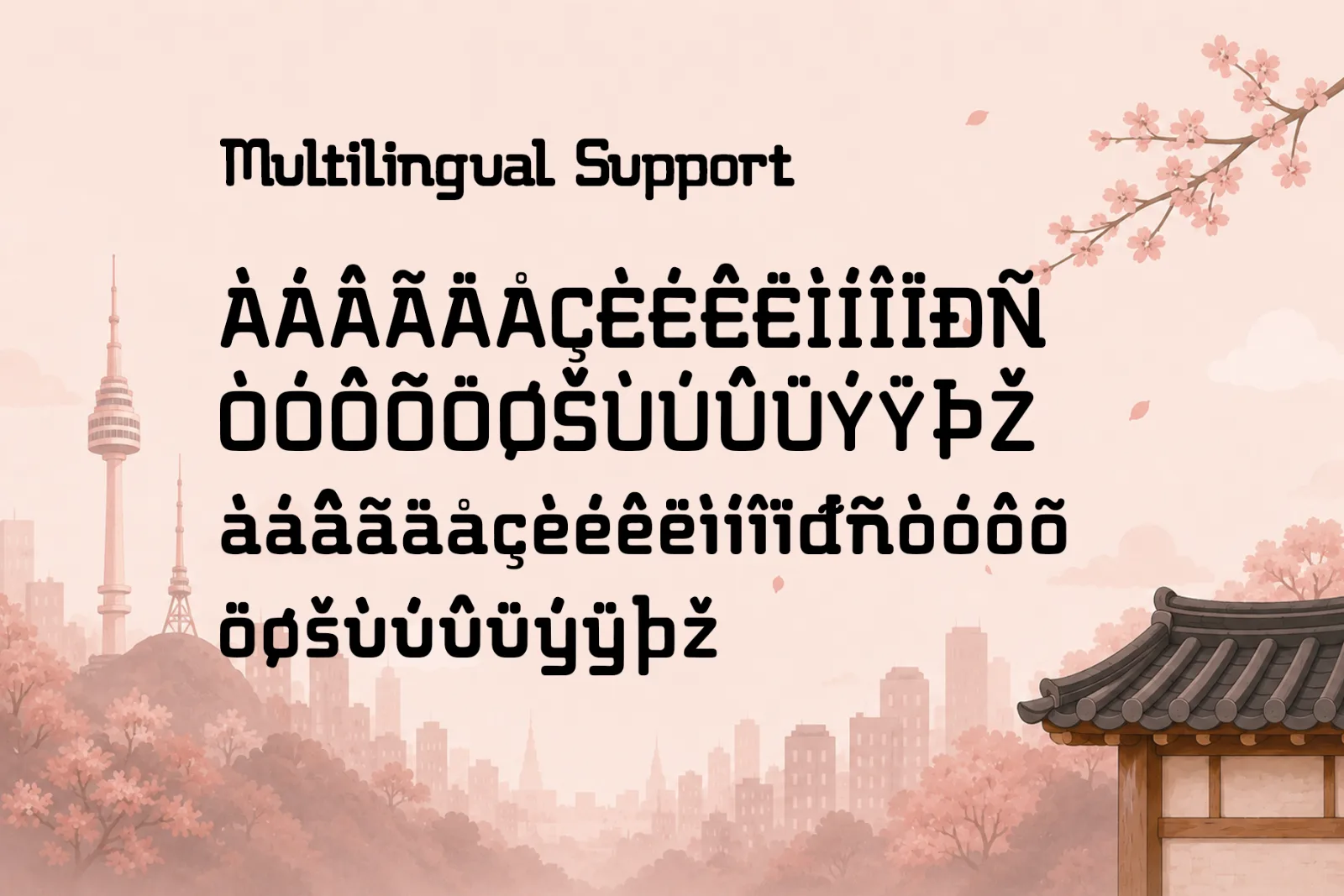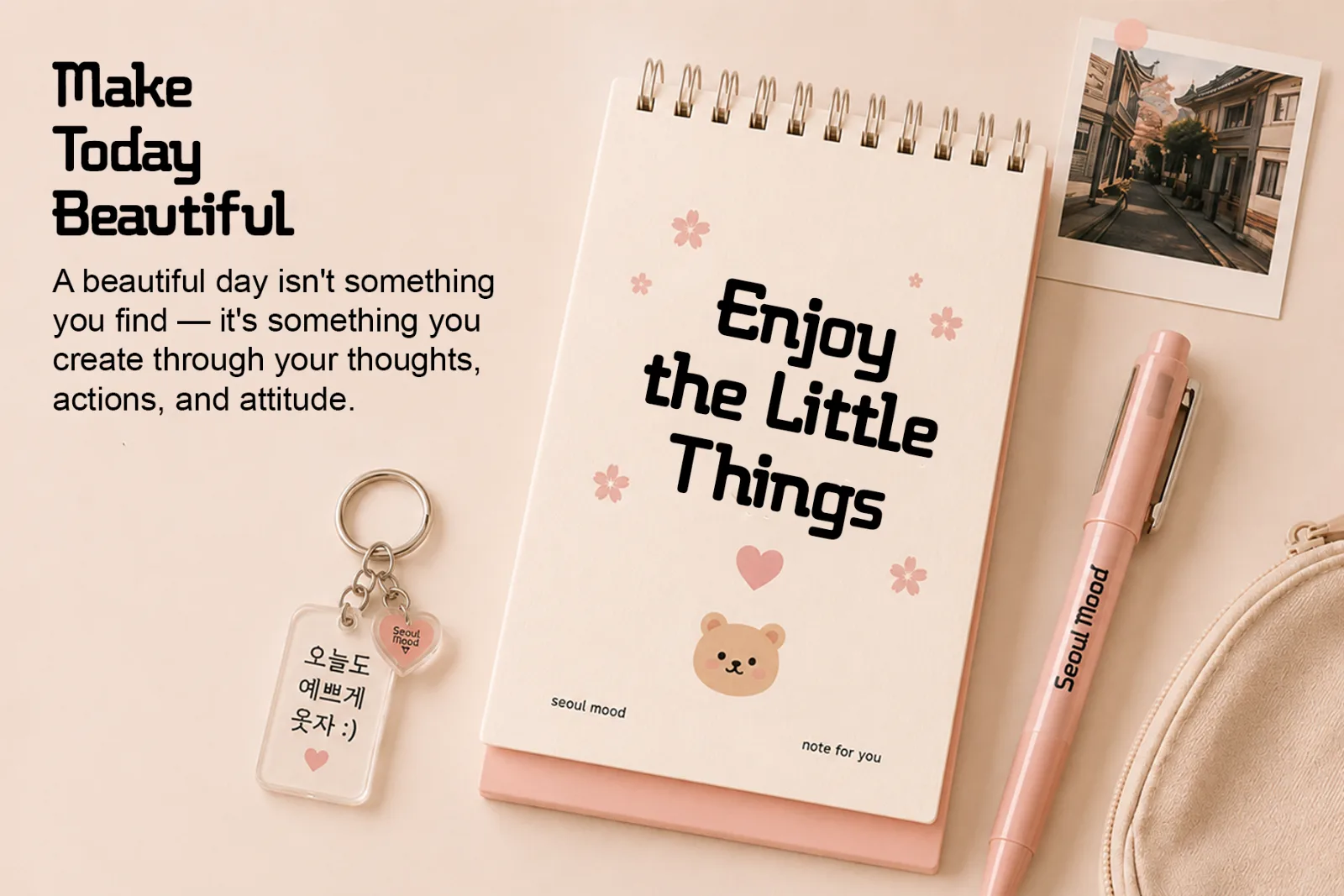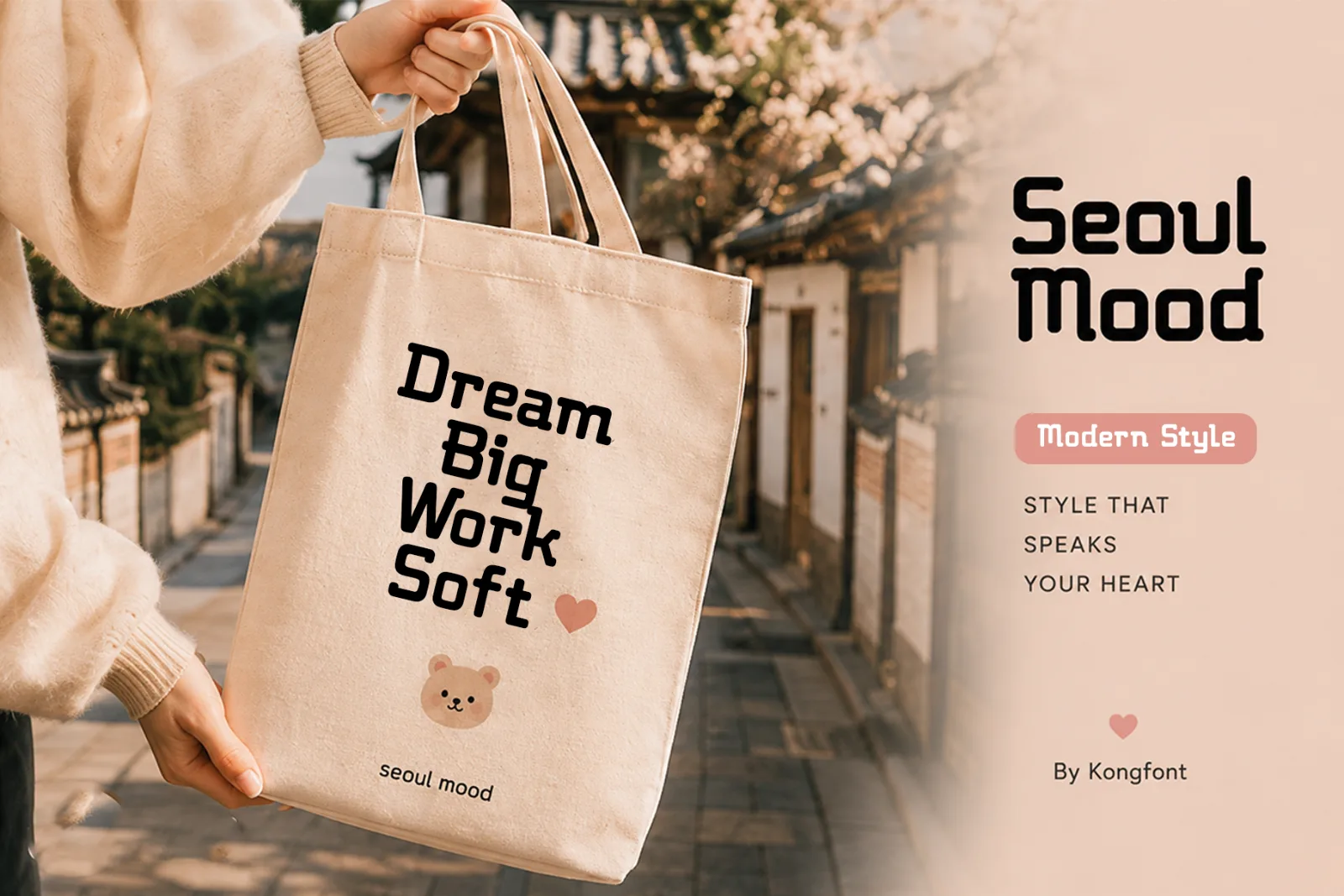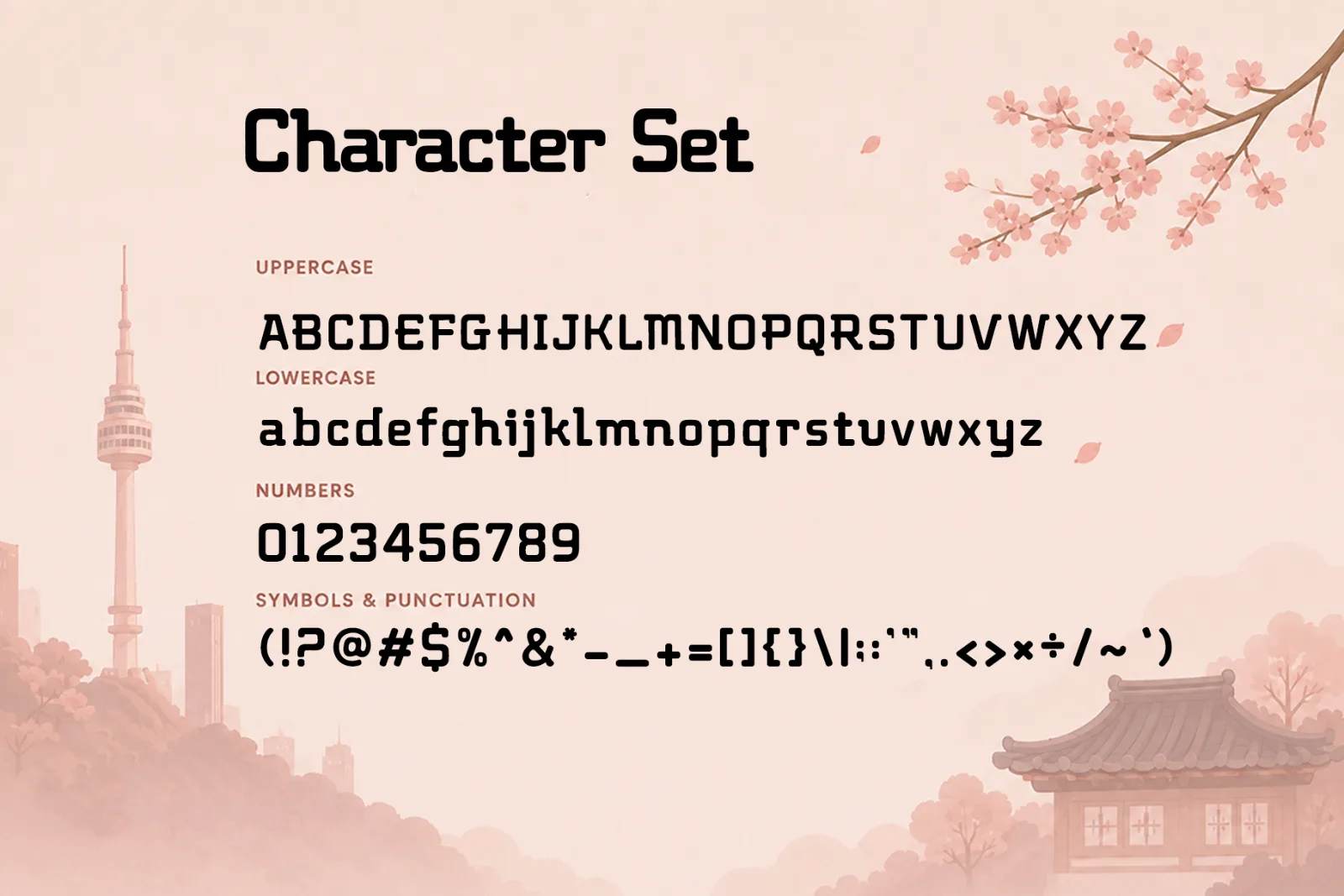
Seoul Mood – Modern Rounded Display Font
Seoul Mood is a modern rounded display font inspired by contemporary Korean aesthetics, urban culture, and clean minimalist design. Its smooth curves, geometric construction, and friendly personality create a stylish look that feels modern, approachable, and distinctive.
Designed for eye-catching typography, Seoul Mood works beautifully across branding, posters, packaging, editorial layouts, lifestyle graphics, café identities, fashion projects, and social media content.
Perfect for:
- Logo & Branding
- Posters & Headlines
- Korean-Inspired Designs
- Café & Restaurant Branding
- Fashion Graphics
- Packaging
- Editorial Layouts
- Lifestyle Branding
- Social Media Content
- Website Headers
- Merchandise
- Creative Advertising